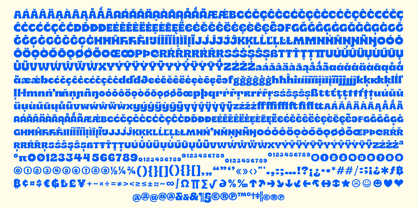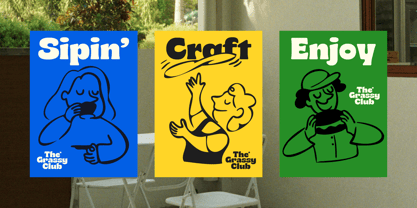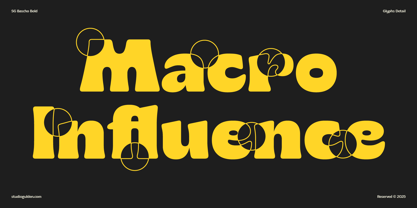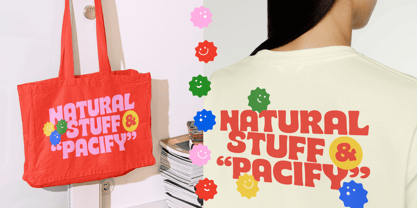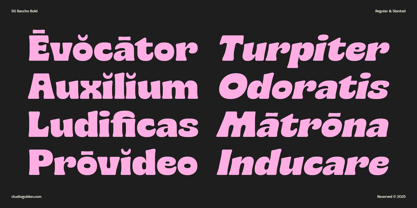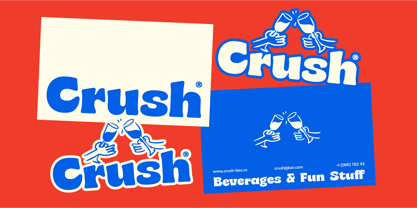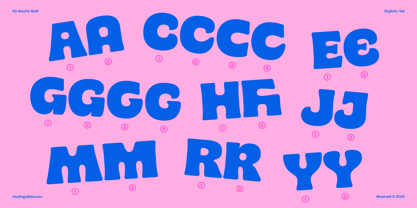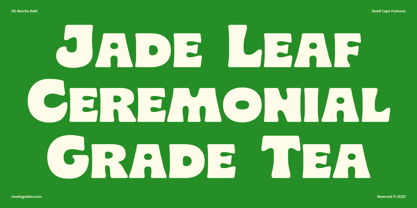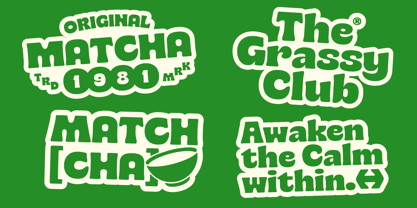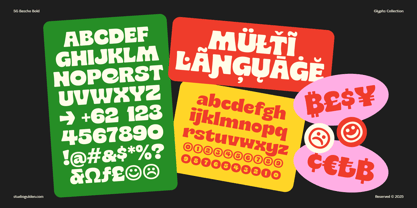
SG Bascho
by Studio Gulden
The SG Bascho Font Family was designed by Umar Al Farouq, Jodi El Ghazi, Febri Riansah and published by Studio Gulden. SG Bascho contains 2 styles and family package options.
Inject instant personality and groovy confidence into your work with SG Bascho. This unapologetically bold serif font is designed to make a statement, blending vintage warmth with contemporary clarity. Its chunky, friendly letterforms command attention, making it the perfect tool for designers who want to create memorable, high impact visuals that feel both nostalgic and refreshingly modern. SG Bascho is built on a philosophy of approachable boldness. Inspired by the soft, high impact typography of the 70s, its design features chunky, low contrast letterforms and generously rounded serifs that seem to melt into each stem. This creates a distinctively soft and fluid aesthetic, evoking a sense of warmth and playfulness. Unlike sharp, sterile serifs, SG Bascho feels human and inviting. It’s a typeface that doesn’t shout but speaks with a confident, friendly voice, perfect for conveying messages that are both strong and personable. Designed for the modern creative, SG Bascho is a versatile powerhouse for branding experts, editorial designers, and social media creators. Its expressive character shines in logo design, packaging for artisanal goods, and eye catching headlines for magazines or posters. On screen, it brings flair to website headers, digital ad campaigns, and quote graphics, ensuring your message stands out in a crowded digital landscape. Whether you're crafting a retro inspired brand identity or a bold, contemporary statement piece, SG Bascho provides the character you need. Two Essential Styles: Includes a solid Regular and a dynamic Slanted style to add versatility and emphasis to your typography. Extensive Character Set: Features over 500 glyphs, including a full suite of uppercase, lowercase, numbers, and punctuation. Broad Multilingual Support: Equipped to communicate globally with support for over 300 Latin based languages. Meticulously Kerned: Carefully spaced and fully kerned to ensure flawless letter spacing right out of the box. Distinctive Personality: Characterized by its chunky, soft serifs and a friendly, high impact visual tone. Stop blending in and start standing out. Embrace the bold and bring your designs to life with SG Bascho.
Designers: Umar Al Farouq, Jodi El Ghazi, Febri Riansah
Publisher: Studio Gulden
Foundry: Studio Gulden
Design Owner: Studio Gulden